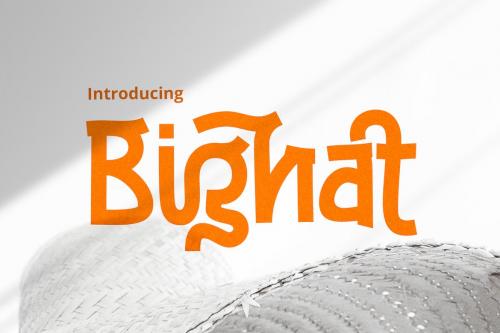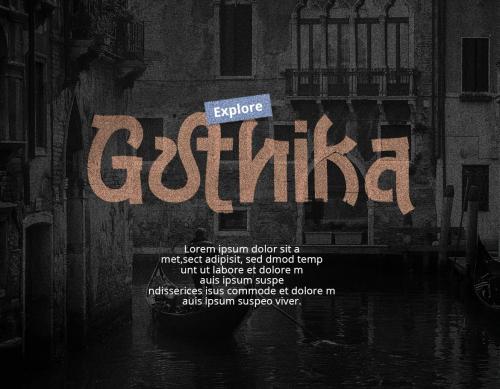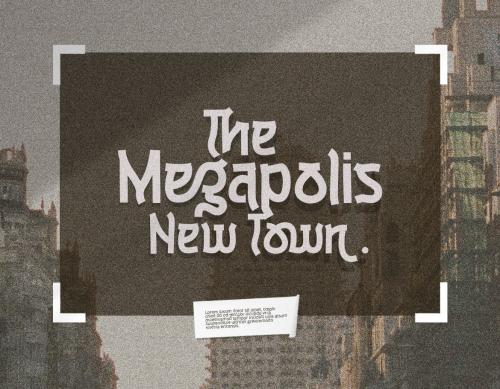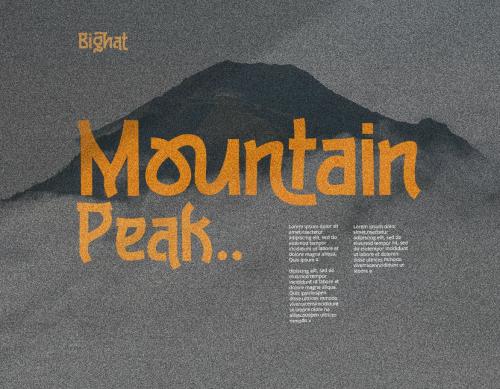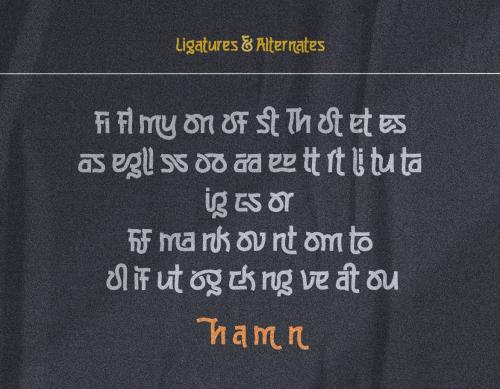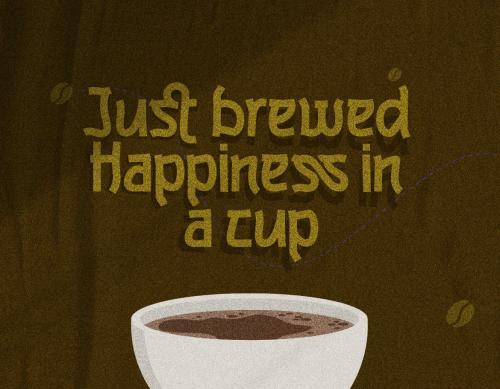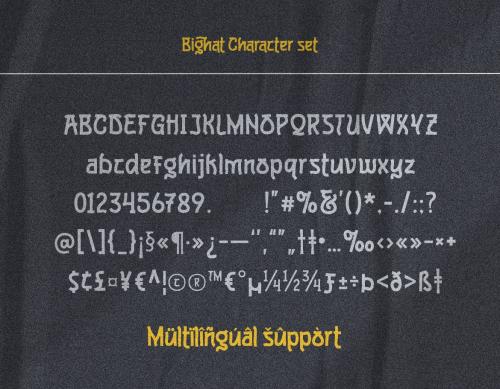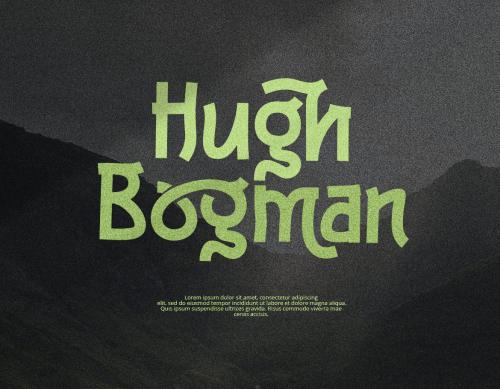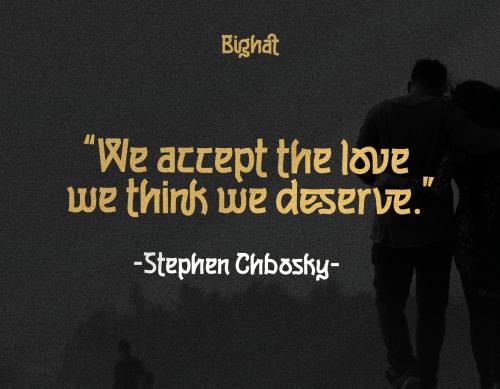
Big Hat Font
Bighat Font
**Bighat** _is a unique hand-written semi-bold typeface. Comes with extra ligatures and alternates that makes your writing have more alternate typing pairs. This font is perfect for your designs that want unique style, modern vintage and elegant such as logotype, cards, posters, quotes, social media posts and so much more!_
**Features:**
* Basic Latin Glyphs
* Uppercase and Lowercase Letters
* Alternates & Ligatures
* Numeral and Punctuation
* Multilingual Support